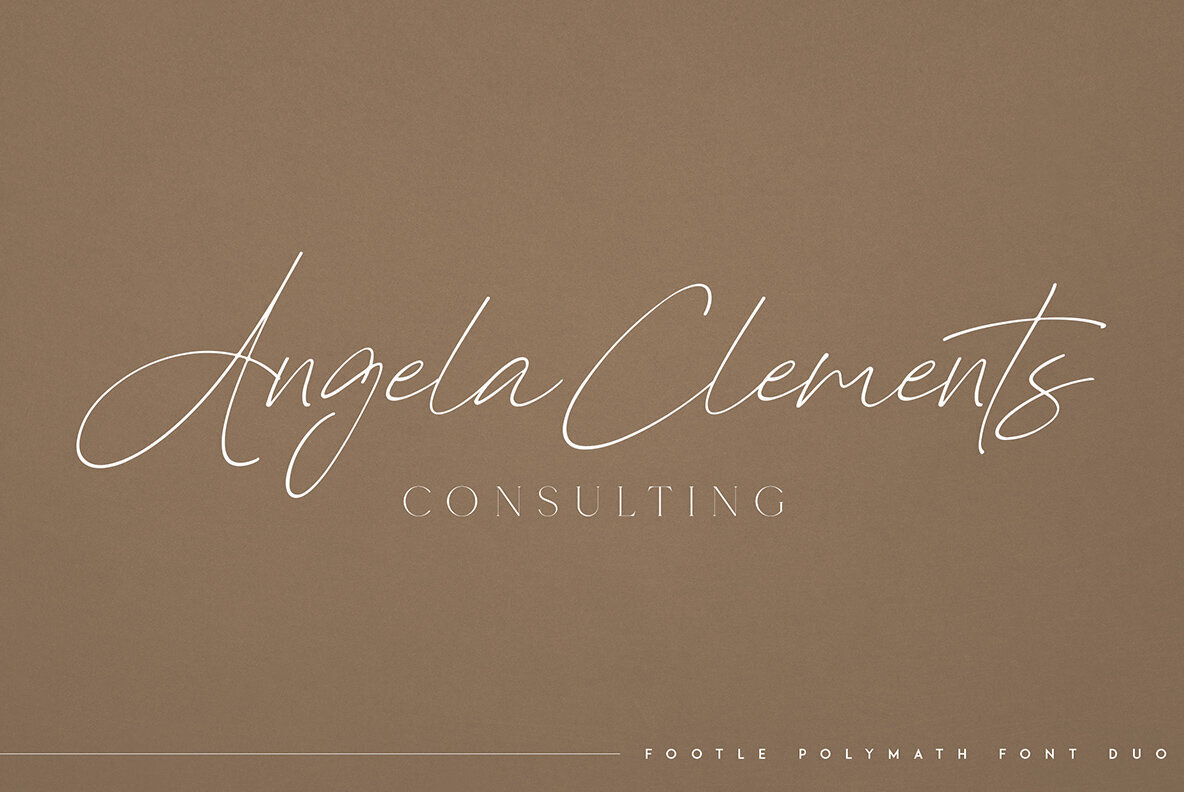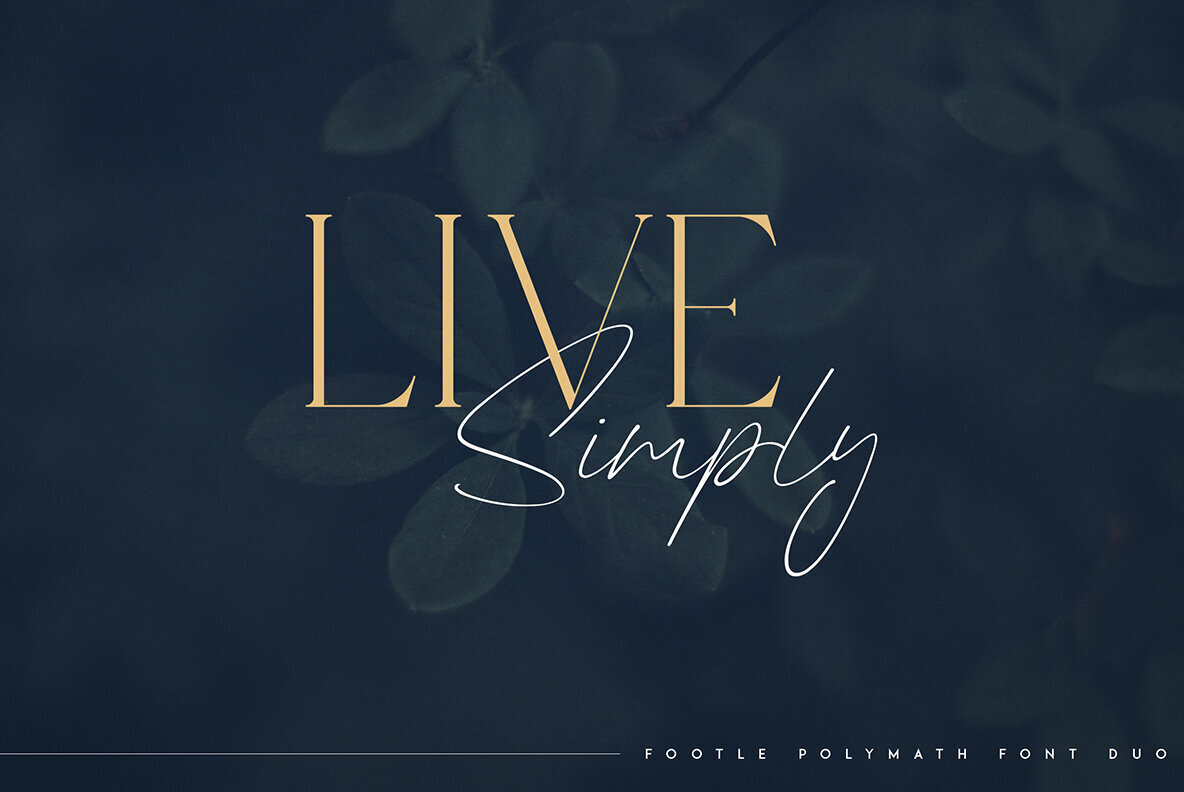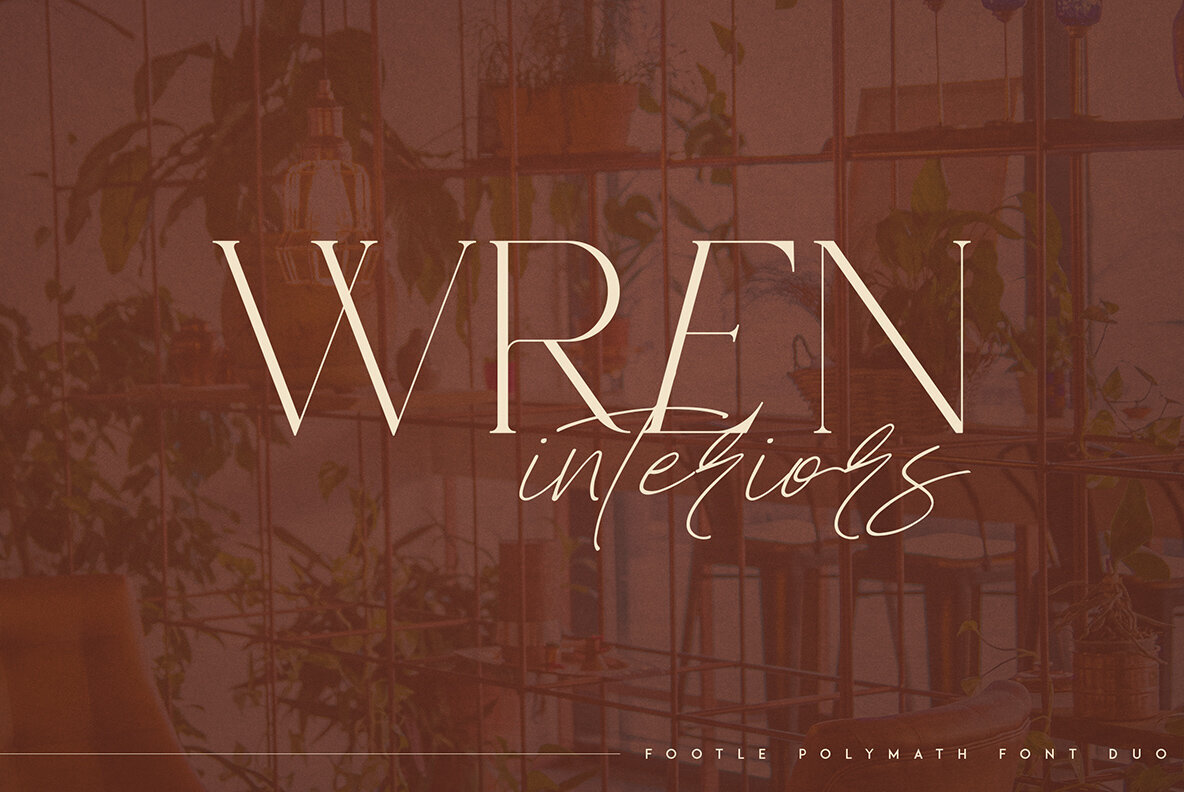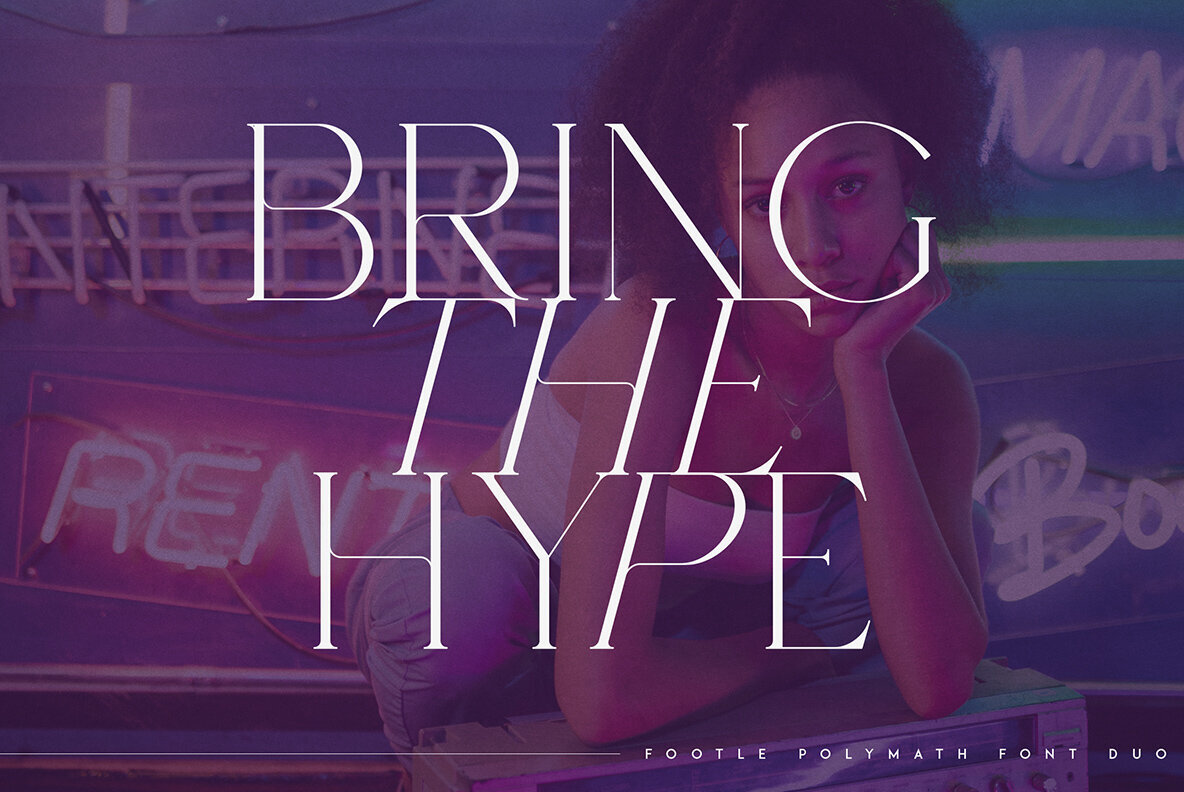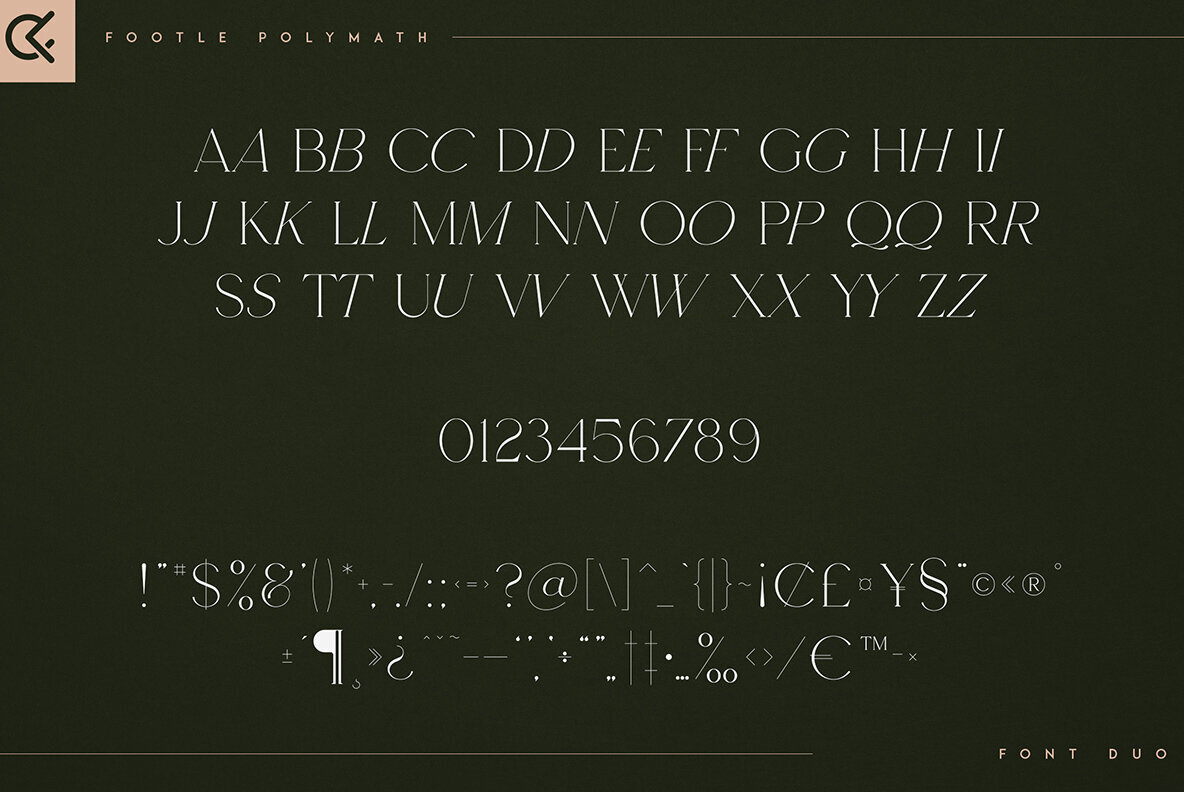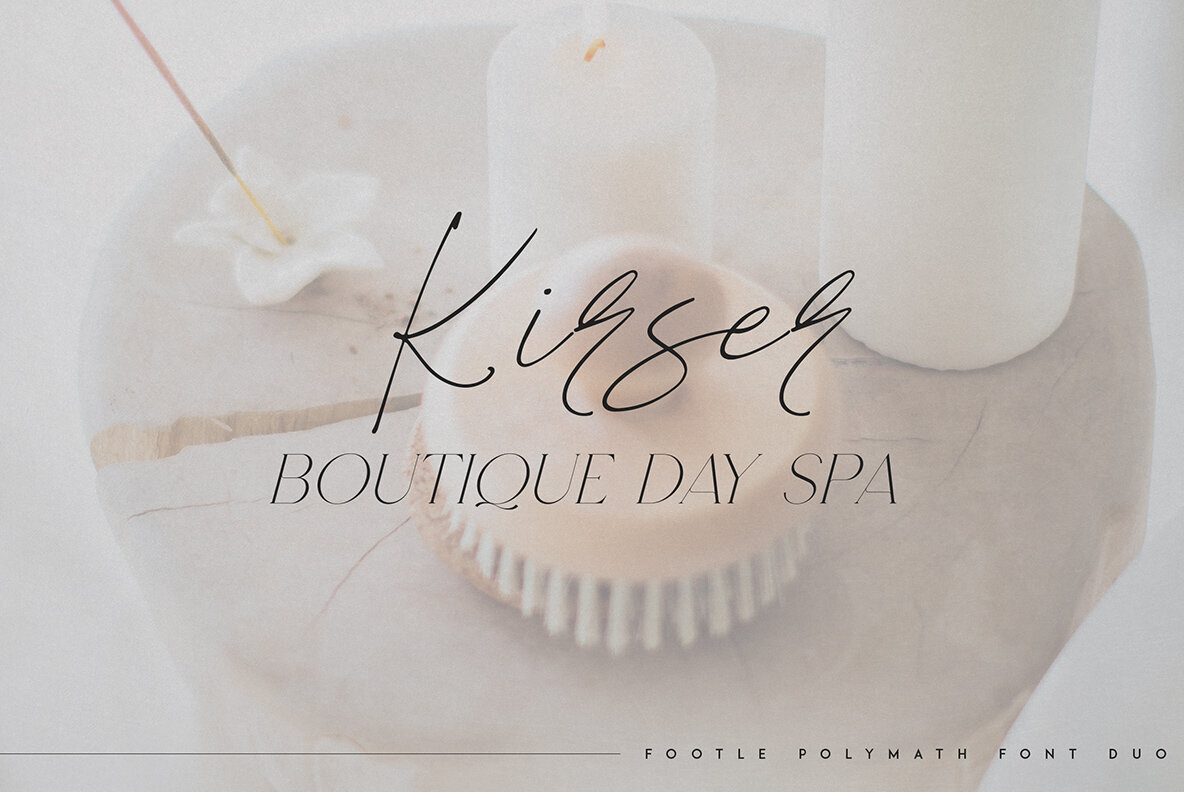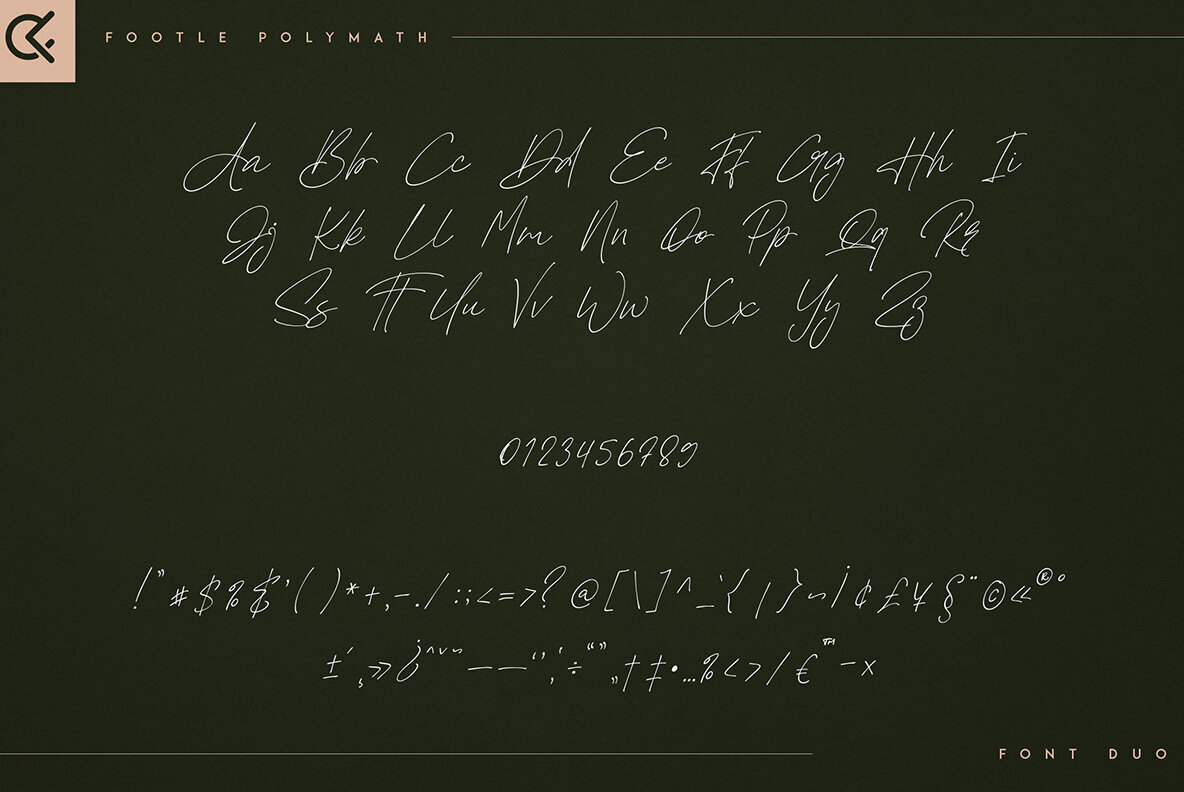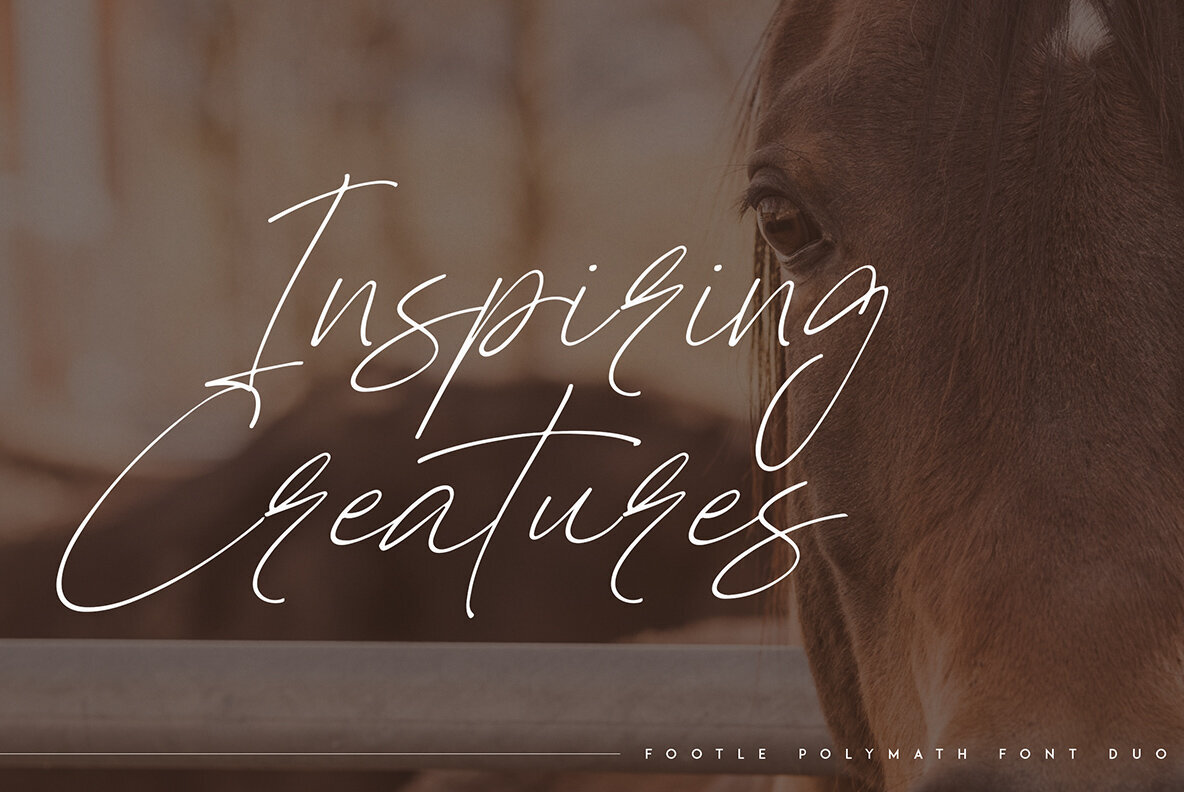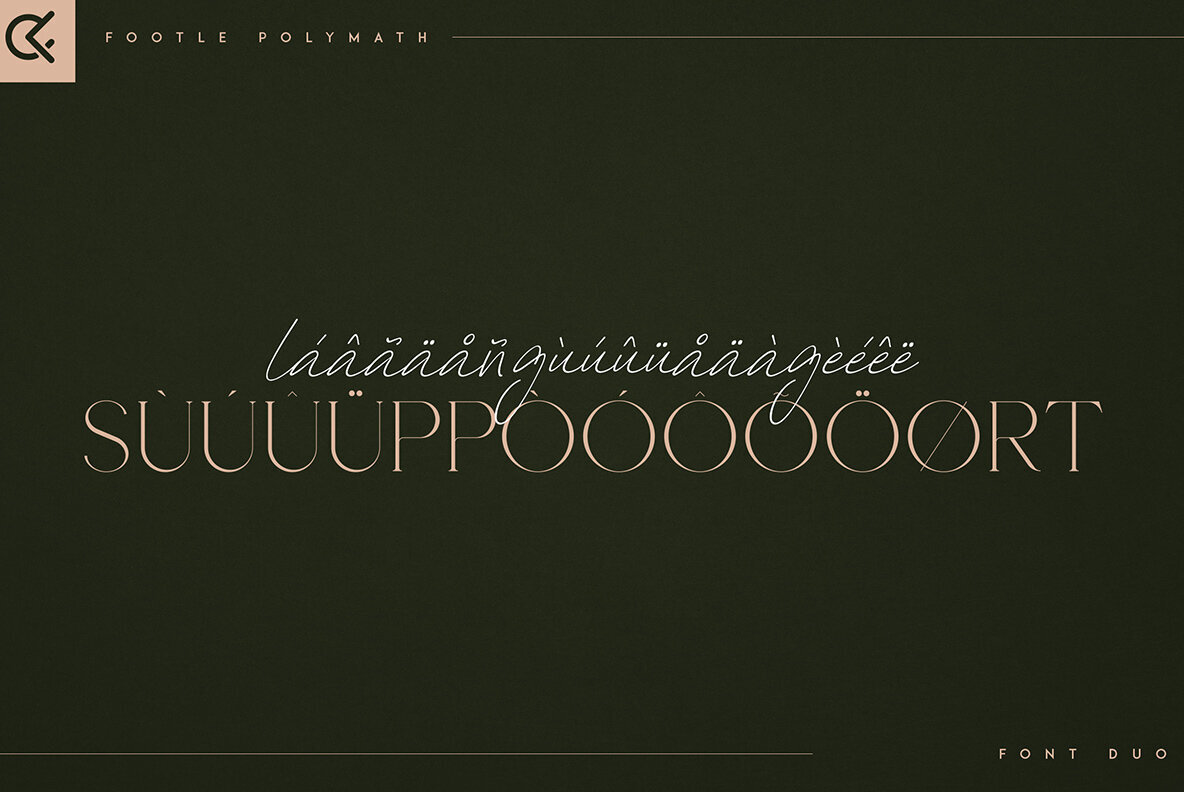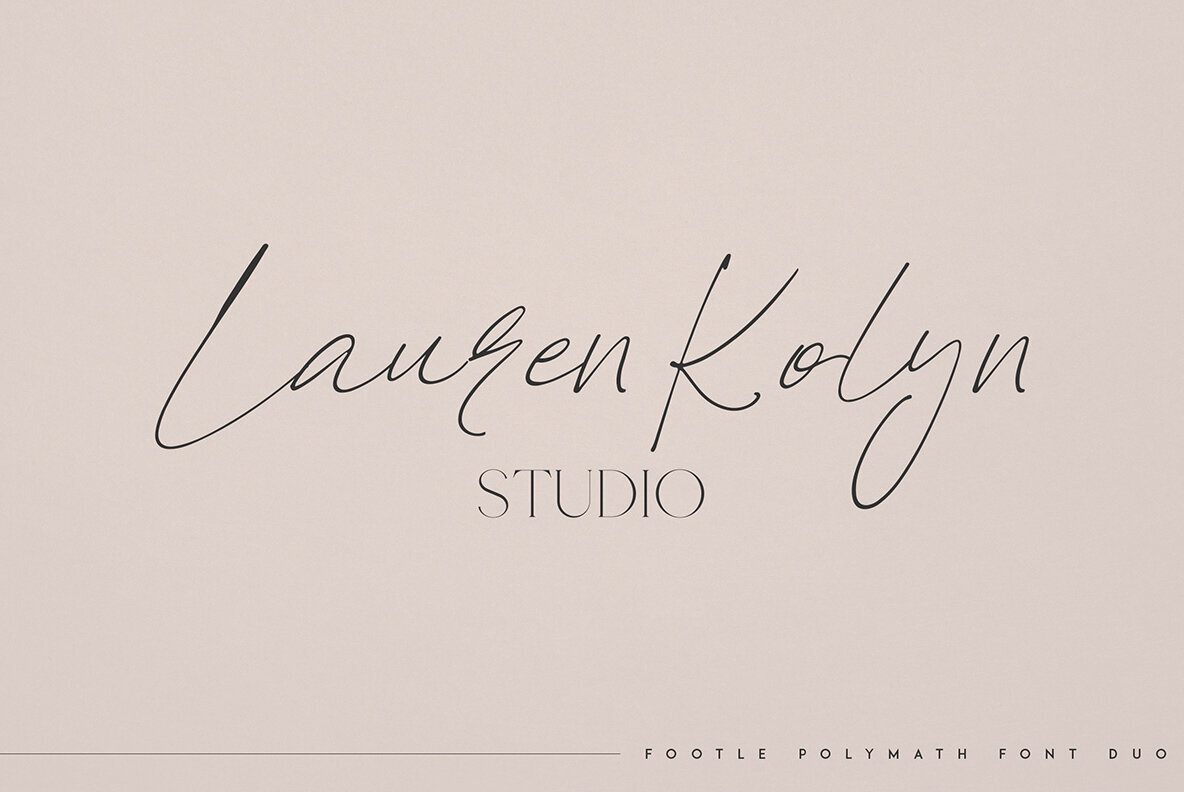
Footle and Polymath Font
Footle Regular
Polymath Regular
Footle & Polymath is a graceful and organic typeface duo with multilingual support, offering versatility in both large and small sizes. This duo is an excellent choice for branding projects, home-ware designs, product packaging, magazine headers, or simply as a stylish text overlay on any background image. Features include uppercase, lowercase, numerals, punctuation, symbols, regular style, script, and multilingual support. No special software is required to type out the standard characters of the typeface, making it Canva-friendly as well. Experience the elegance and adaptability of Footle & Polymath for your next design endeavor.